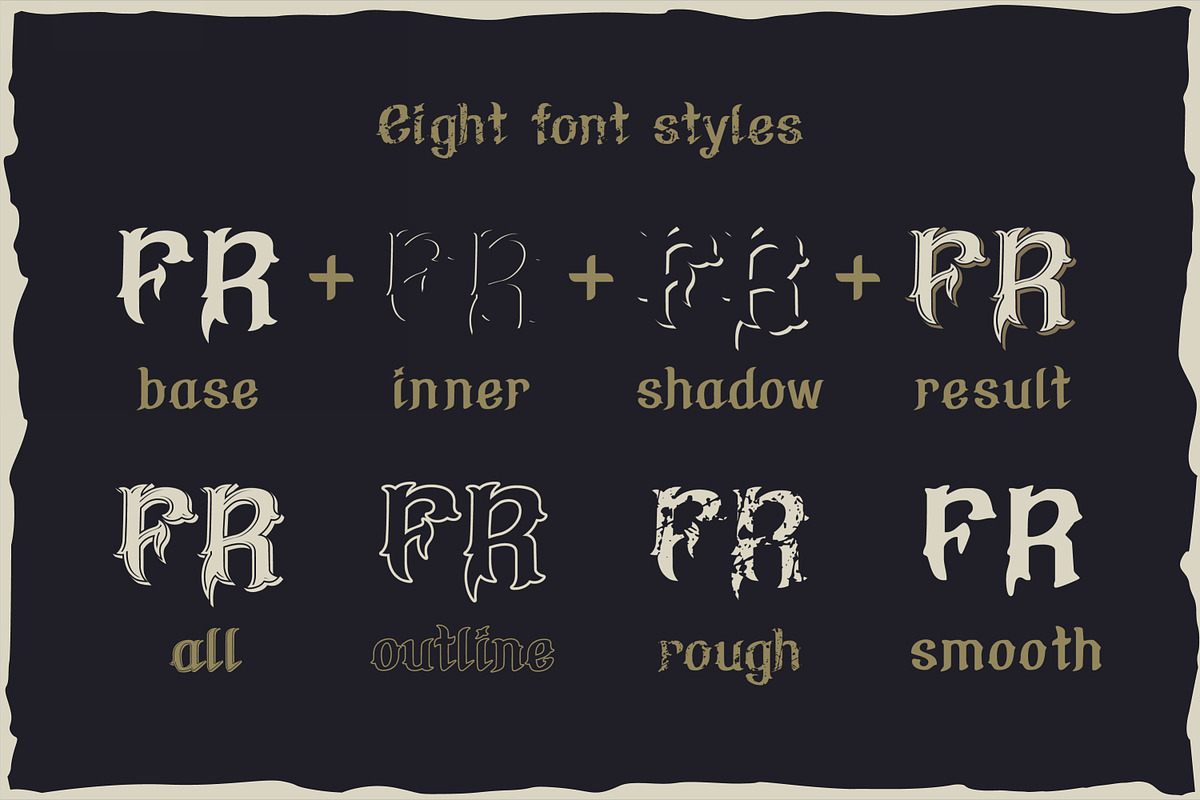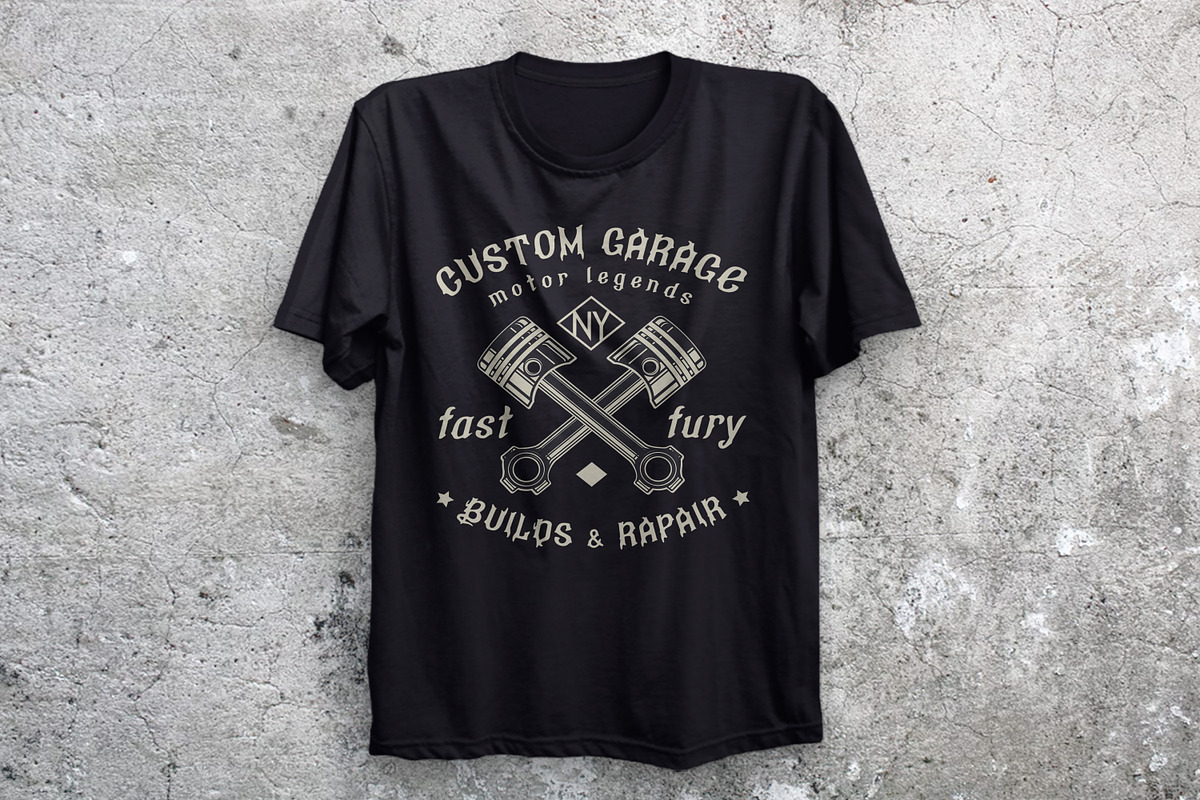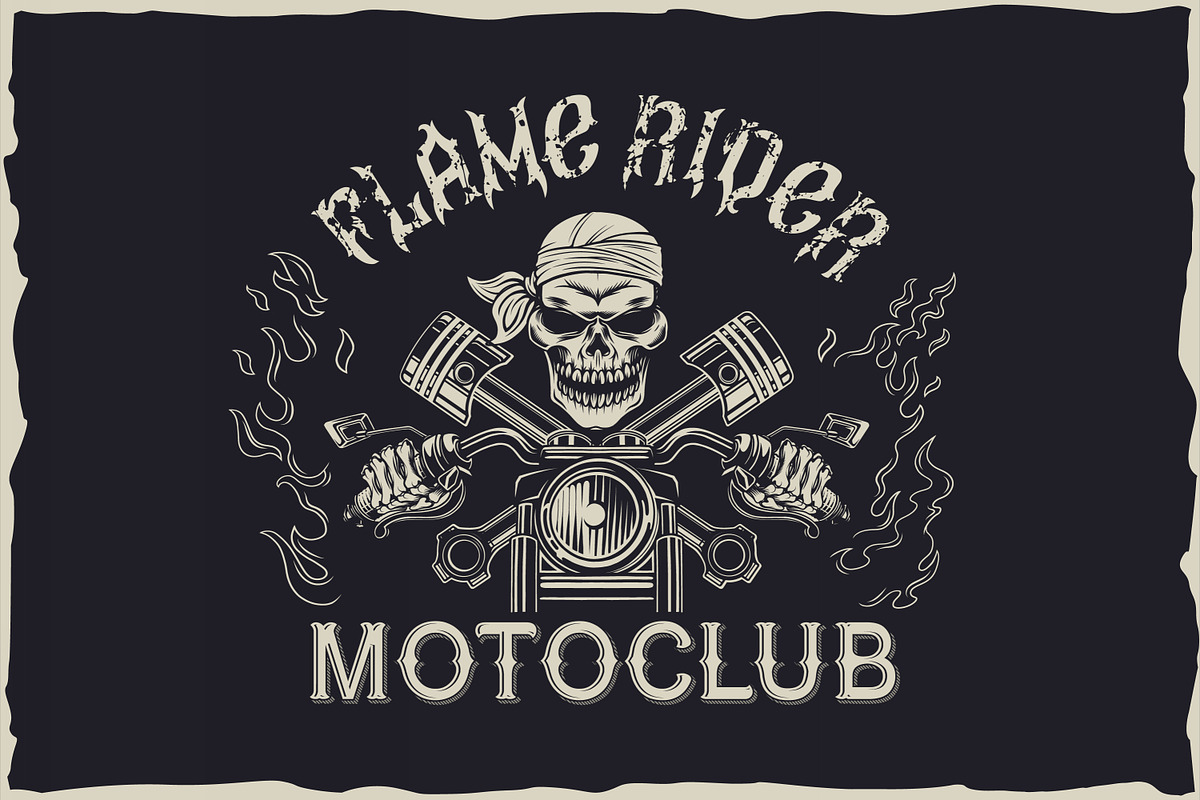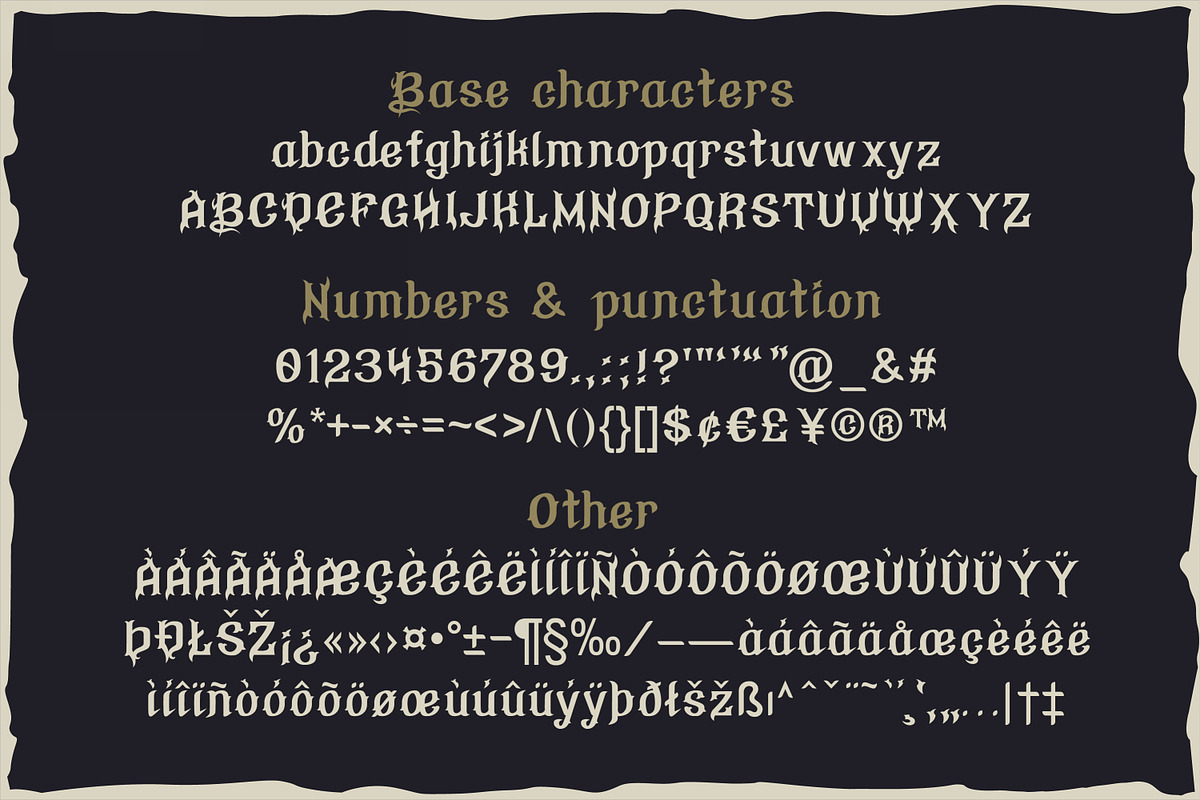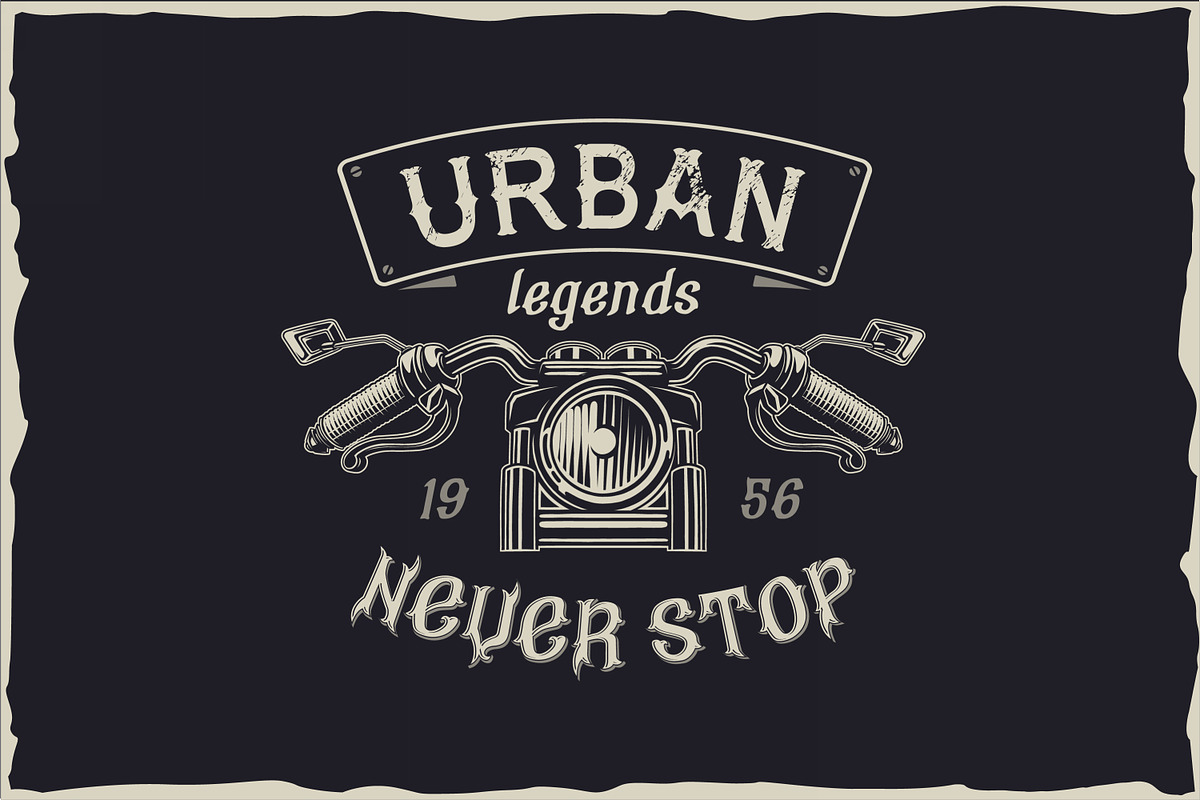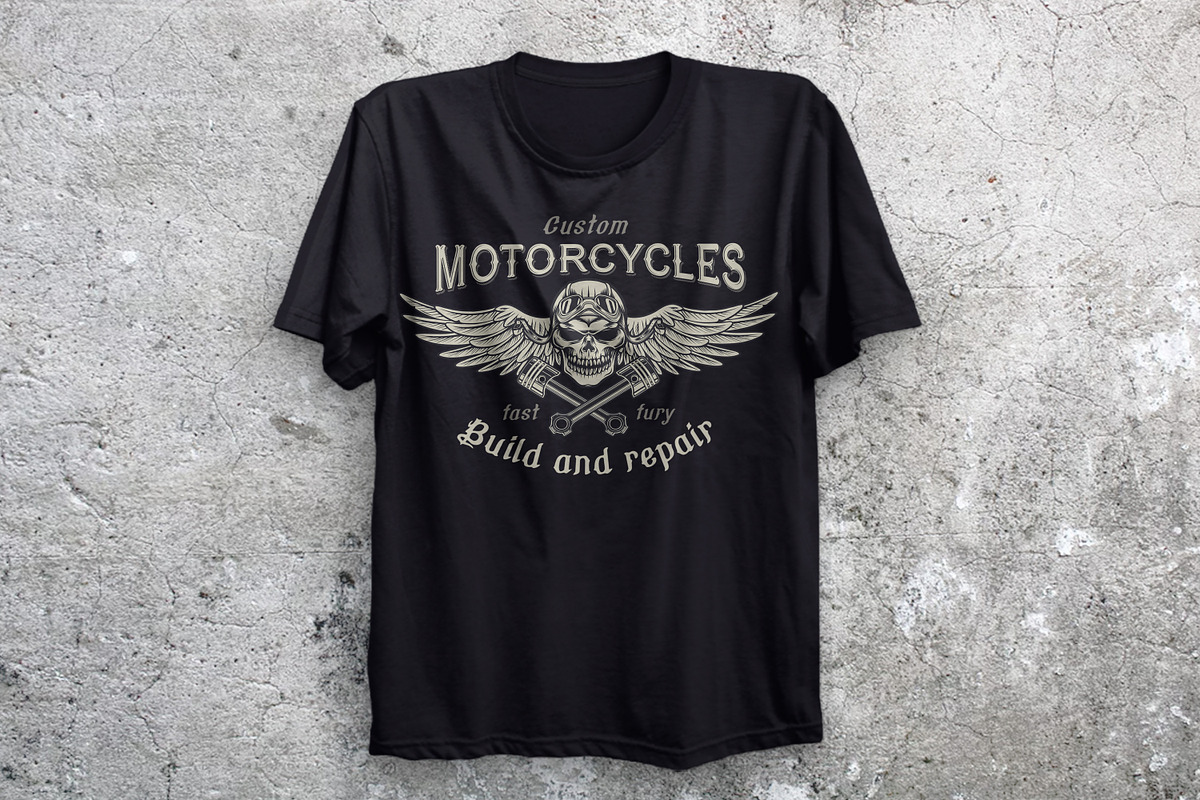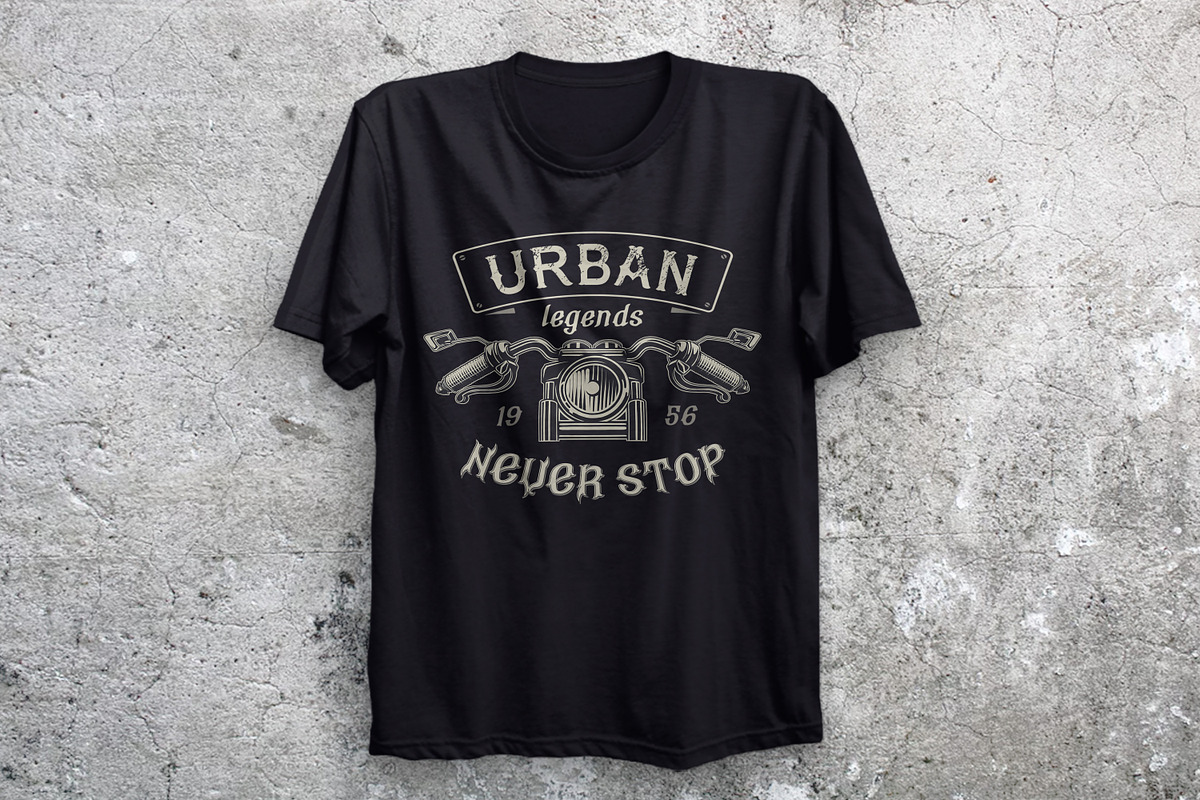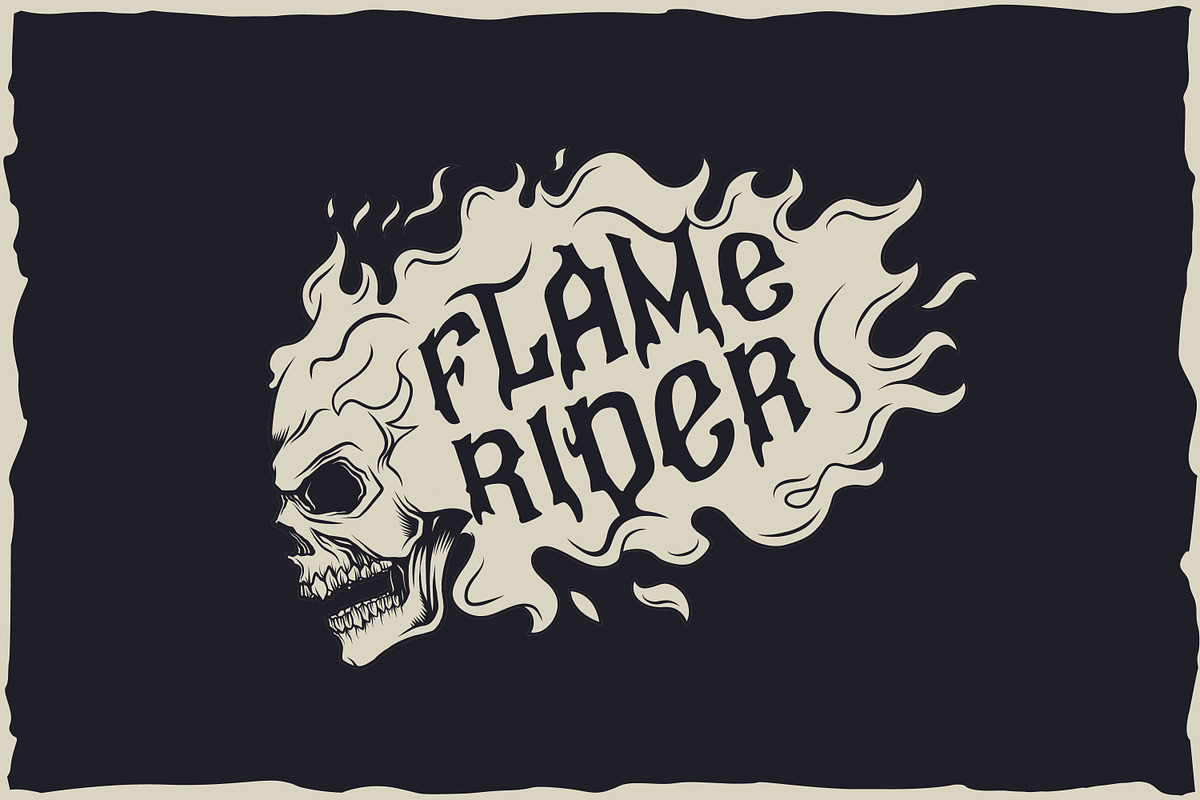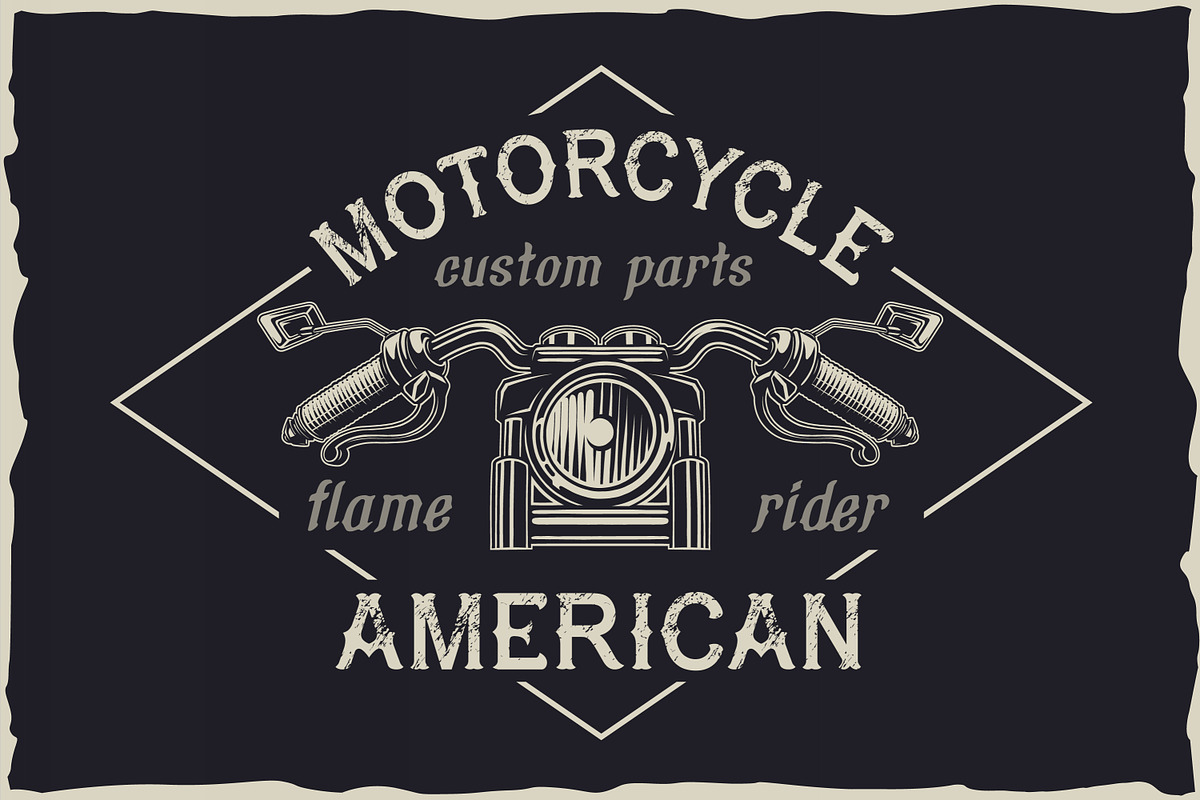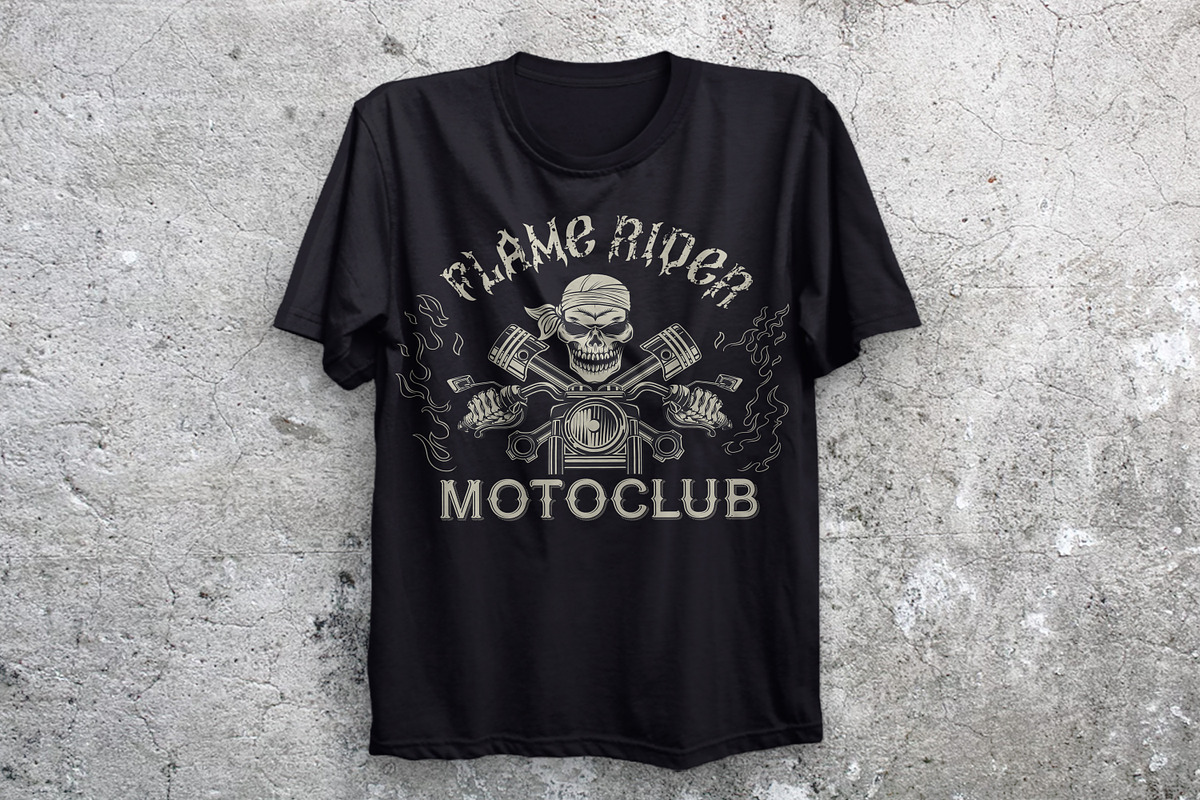
Flame rider
Flame rider. It is a layered font in a vintage biker style. Suitable for illustrations for T-shirts, alcohol labels, logos and corporate identity.
The font has 8 font styles: upper and lower case letters, numbers, punctuation marks and multilingual characters for each style.
Bonus includes 6 illustrations for printing on T-shirts.